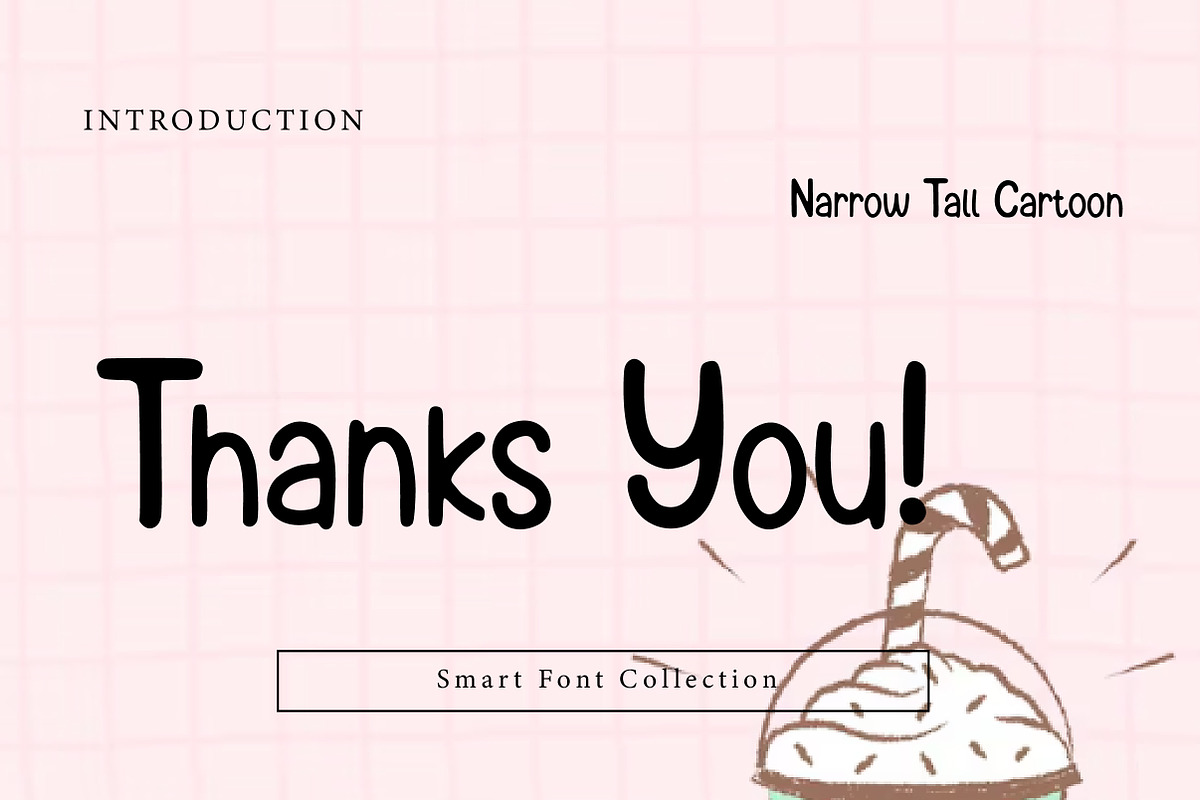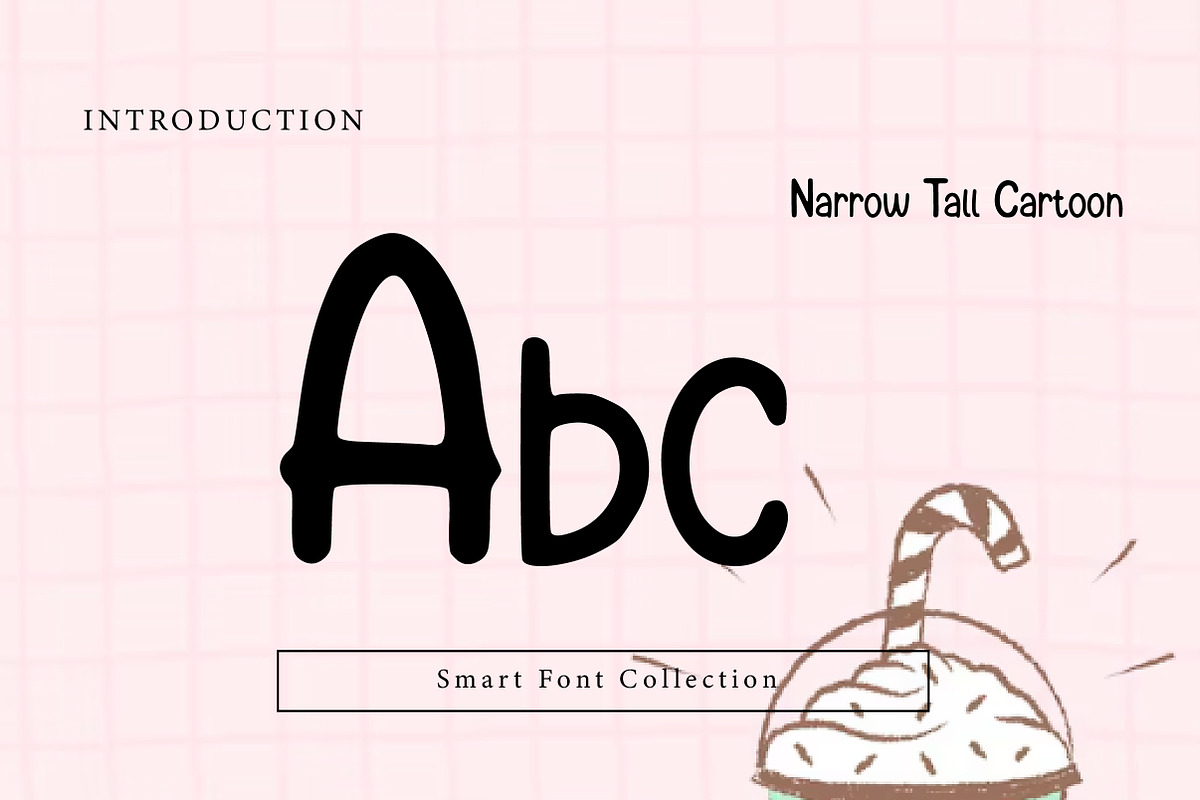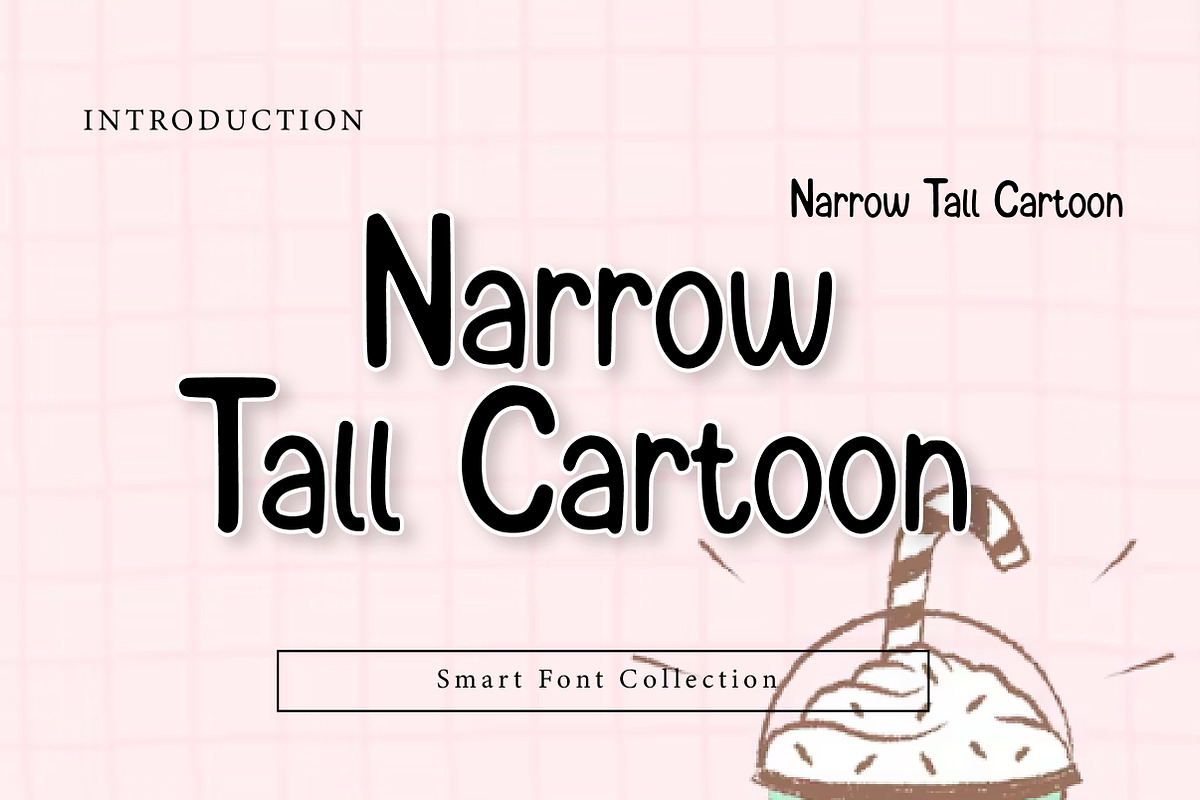
Narrow tall cartoon
Narrow Tall Cartoon is a fun, skinny, tall display font with a playful cartoon personality. Its narrow upright letterforms make it perfect for designs that need a quirky, energetic look while saving space—great for titles, labels, and bold playful text.
Use it for kids designs, comics, posters, stickers, school projects, t-shirt graphics, packaging, logos, social media posts, YouTube thumbnails, party invitations, and playful branding. The tall condensed style keeps your text readable and adds a cheerful, hand-drawn vibe.
Perfect for: Cartoon titles, children’s projects, comic-style graphics, fun branding, and eye-catching headlines.